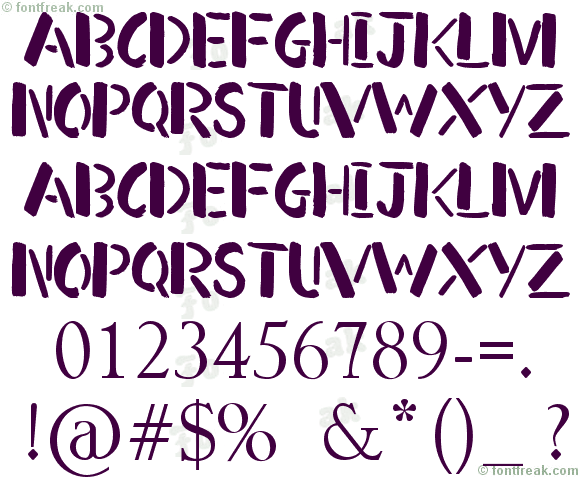
Hard Fox
About Hard Fox
The Hard Fox font, designed by Jonathan S. Harris, is a striking display typeface that captures attention with its unique aesthetic. This font showcases a bold, hand-drawn style that is both rugged and artistic. The letters exhibit a varied stroke weight, contributing to a dynamic visual effect that feels organic and lively. With its rough edges and slightly uneven baseline, Hard Fox has a playful yet edgy character that can enhance any design project.
The font is particularly versatile in its usage, making it an excellent choice for a variety of applications. It works wonderfully for tattoo designs, capturing the essence of personal expression with its artistic flair. Additionally, Hard Fox is suitable for posters, especially for music events or festivals, where a strong visual identity is crucial. It can also be effectively utilized in branding for small businesses looking to convey a unique, handcrafted feel. Furthermore, its quirky style makes it an ideal choice for merchandise designs, such as t-shirts or stickers, where a memorable impression is desired.
What truly sets the Hard Fox font apart is its ability to blend artistry with functionality. It invites creativity while ensuring readability, making it a valuable addition to any designer's toolkit. Whether you are crafting a personal project or enhancing a brand's identity, Hard Fox offers a refreshing and unique typographic solution.